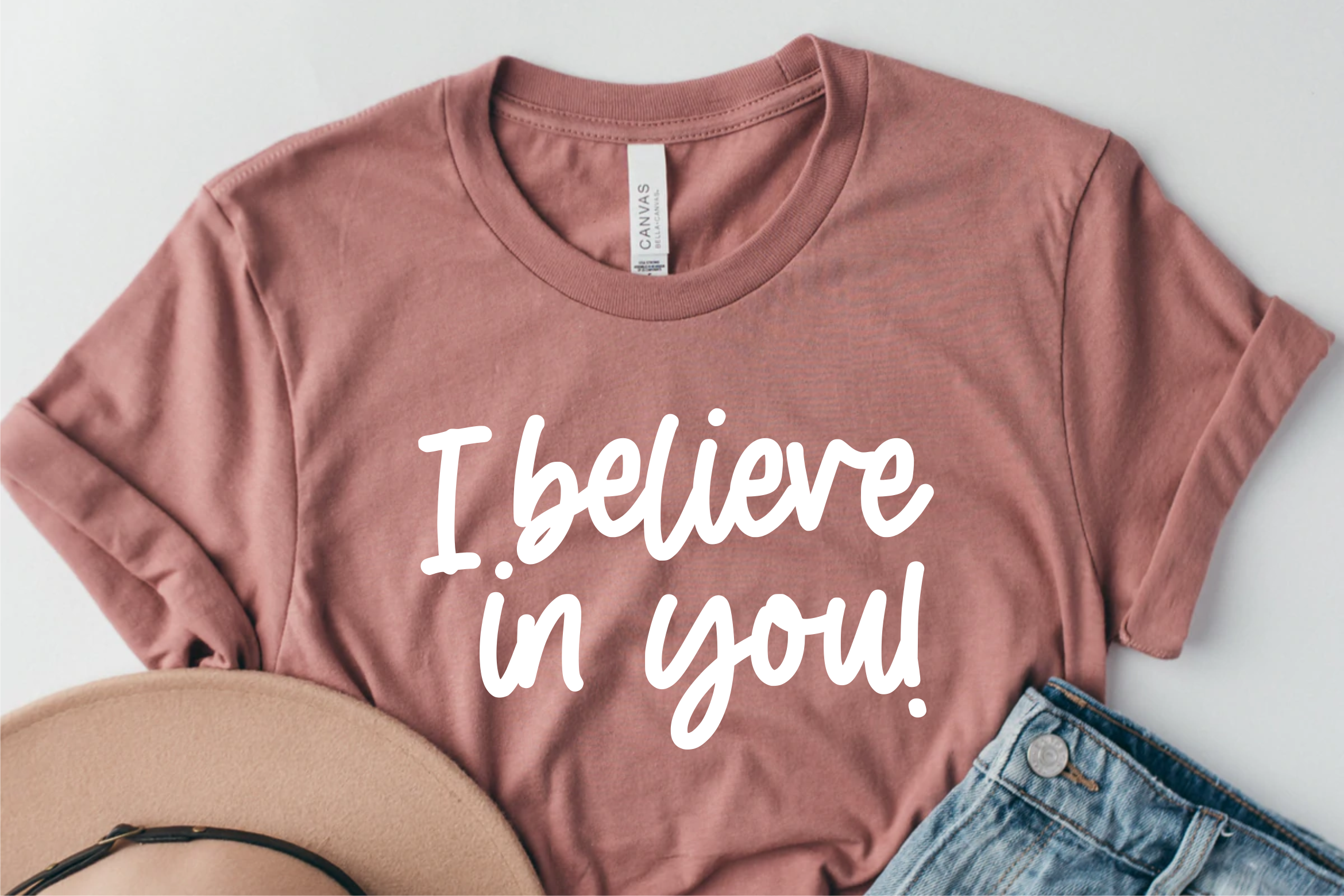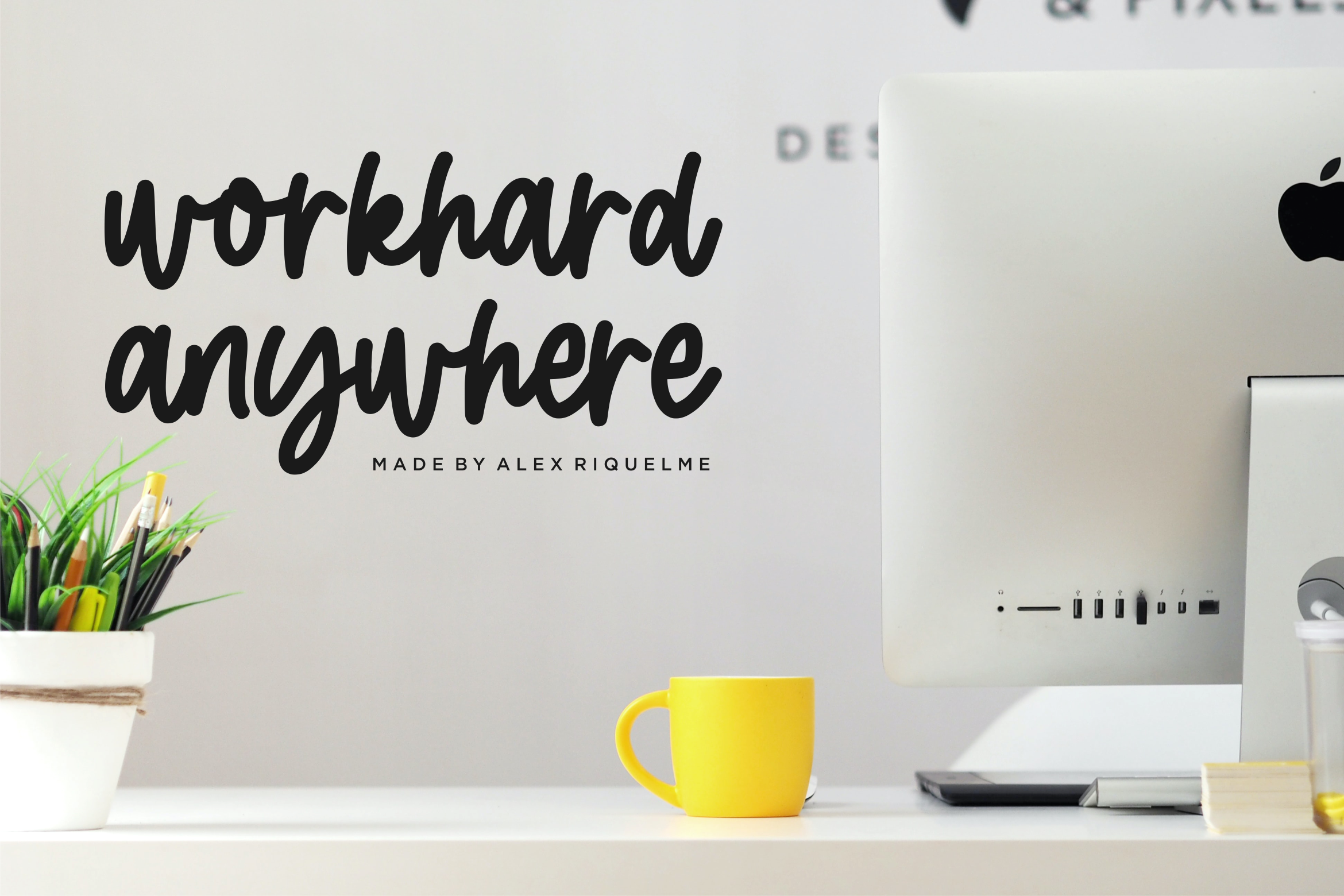
Shalfolk Font
Shalfolk Script Font
This is a Monoline Handwritten Font. Shalfolk is perfect for product packaging, branding project, megazine, social media, wedding, or just used to express words above the background.